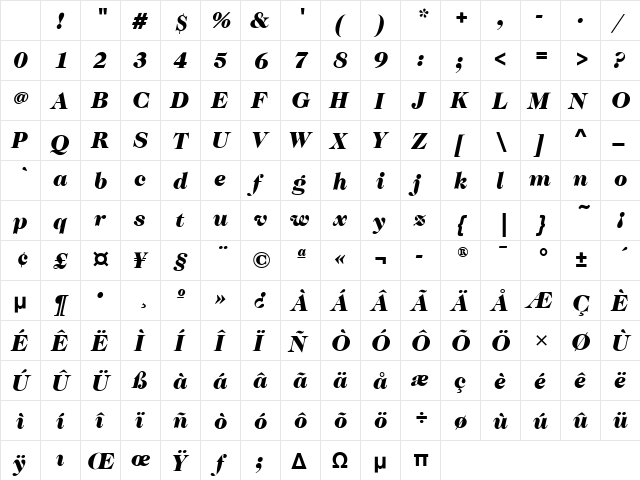
Complete CaslonTwoTweFourMdITC Bold Italic glyph index. Displaying only characters natively supported by CaslonTwoTweFourMdITC Bold Italic font.
CaslonTwoTweFourMdITC is a composed and adaptable typeface that performs quietly and consistently across a wide range of design contexts. The slanted form adds forward momentum and visual energy. Its bold stroke weight gives it real presence on the page.
Pro Tip: Use CaslonTwoTweFourMdITC for emphasis, pull quotes, and subheadings where its slanted energy can add rhythm to the layout.